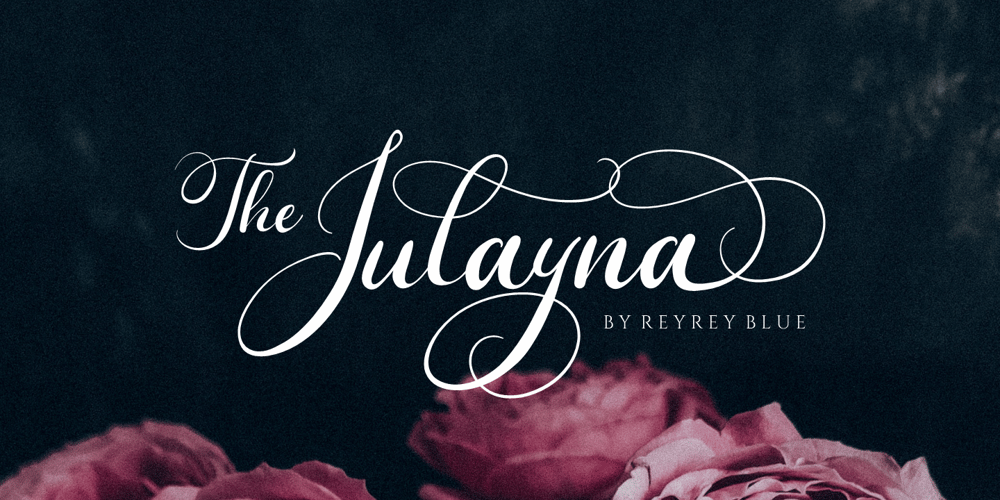
The Julayna Font Family was designed by Risca Anitawati and published by Reyrey Blue Std. The Julayna contains 1 styles and family package options. Introduce – The Julayna a luxurious wedding calligraphy font. It will add a luxury spark to any design project that you wish to create! The Julayna script font can be used for your next design, such as wedding invitations and wedding suites, stationery, packaging, feminine branding, logos, quotes, and prints.Includes: Uppercase and Lowercase, numbers, symbols, and punctuation Stylistic Alternate Ligatures Multilingual Characters